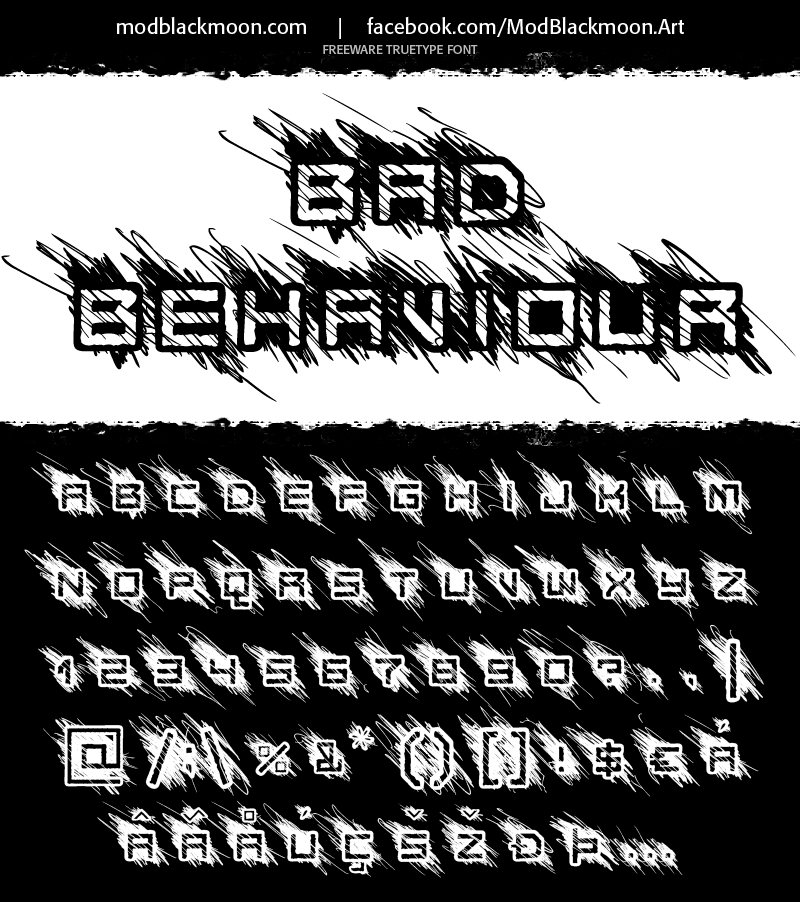
Preview and download Bad Behaviour Font. Created by Irina ModBlackmoon in Fancy Eroded styles with 100% Free license.
Font name: | Bad Behaviour |
Author: | Irina ModBlackmoon |
Note by Irina ModBlackmoon | |
Scratched, Grunge Font. Incl. English, European letters, Numbers and major punctuation marks. August 2015. Freeware for any personal and commercial use. Validated in HLFC , no errors. |